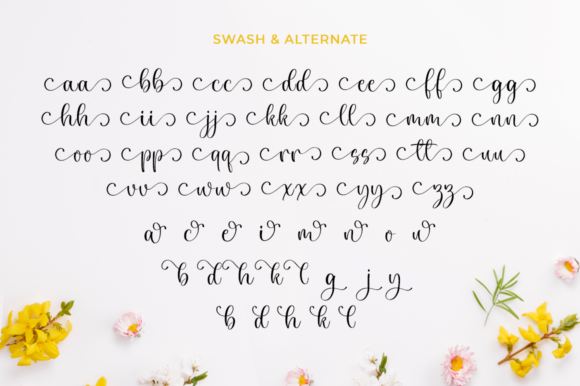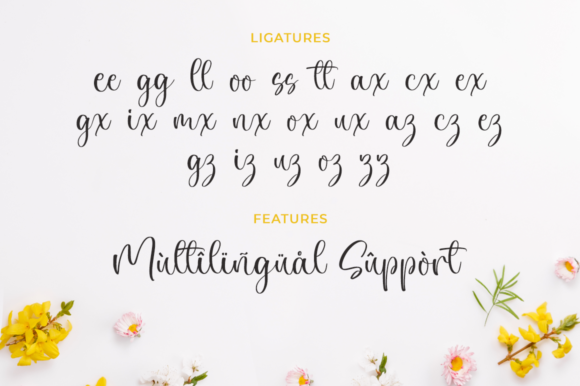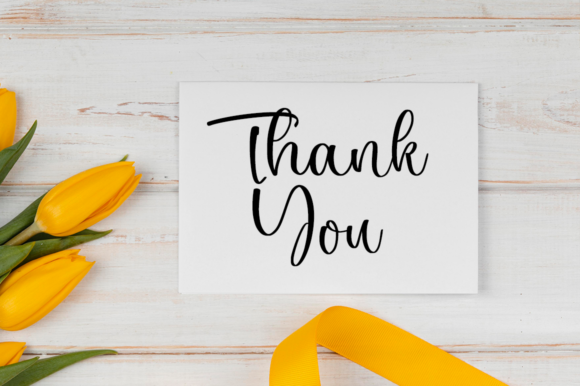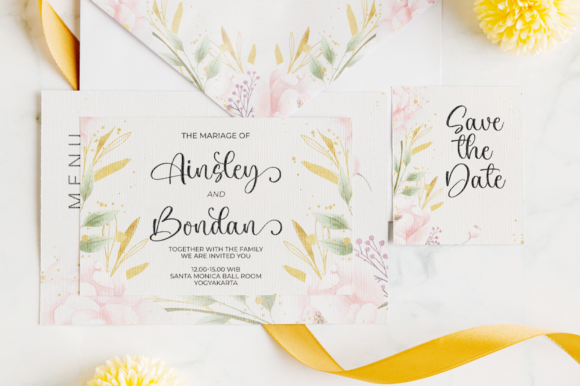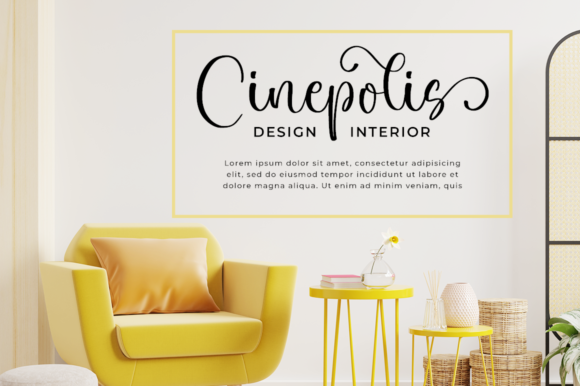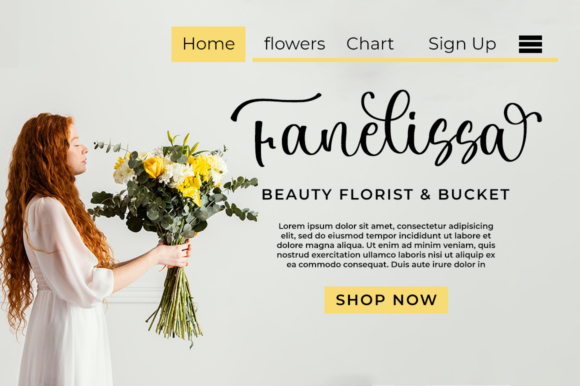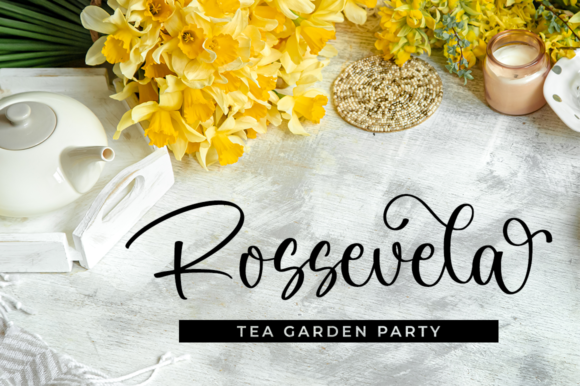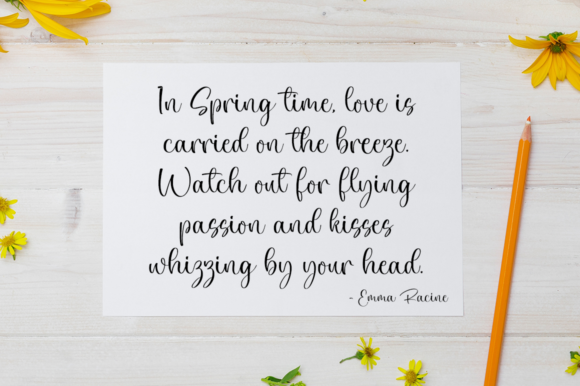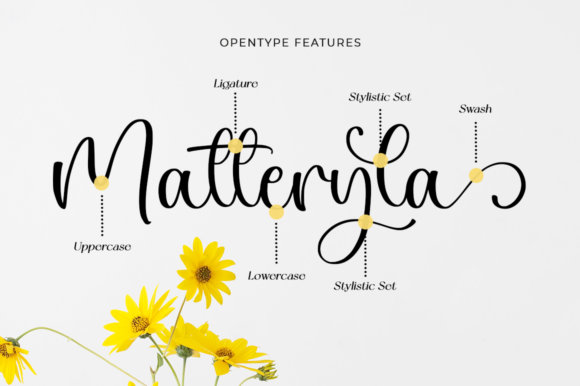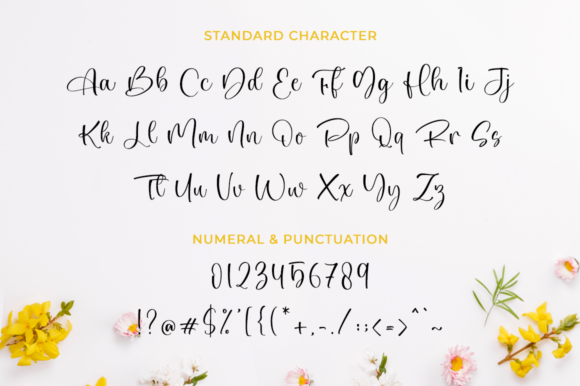
Springlove Font
About Springlove Font
“Springlove” is a script font that radiates with a lovely and delicate charm, emanating both elegance and class. This font is particularly well-suited for individuals seeking to infuse their designs with a beautiful and rejuvenating appearance. Its elegance and refreshing look make it a perfect choice for various design projects.
The font’s allure lies in its ability to seamlessly convey a sense of delicacy and sophistication. Its graceful and carefully crafted characters contribute to an overall aesthetic that elevates the visual appeal of your designs.
“Springlove” shines across an array of design contexts. From personal projects to professional endeavors, its versatility makes it an excellent option for those who wish to add a touch of refined beauty to their creations.
The PUA encoding of this font is an added advantage, granting designers easy access to its complete set of glyphs and swashes. This encoding facilitates the exploration of various design options and decorative elements, further enhancing the font’s creative potential.
In summary, “Springlove” offers a lovely and delicate script font that encapsulates elegance and class. Its ability to provide a fresh and refined look, coupled with the convenience of PUA encoding, makes it a valuable tool for designers seeking to enhance the visual allure of their designs.